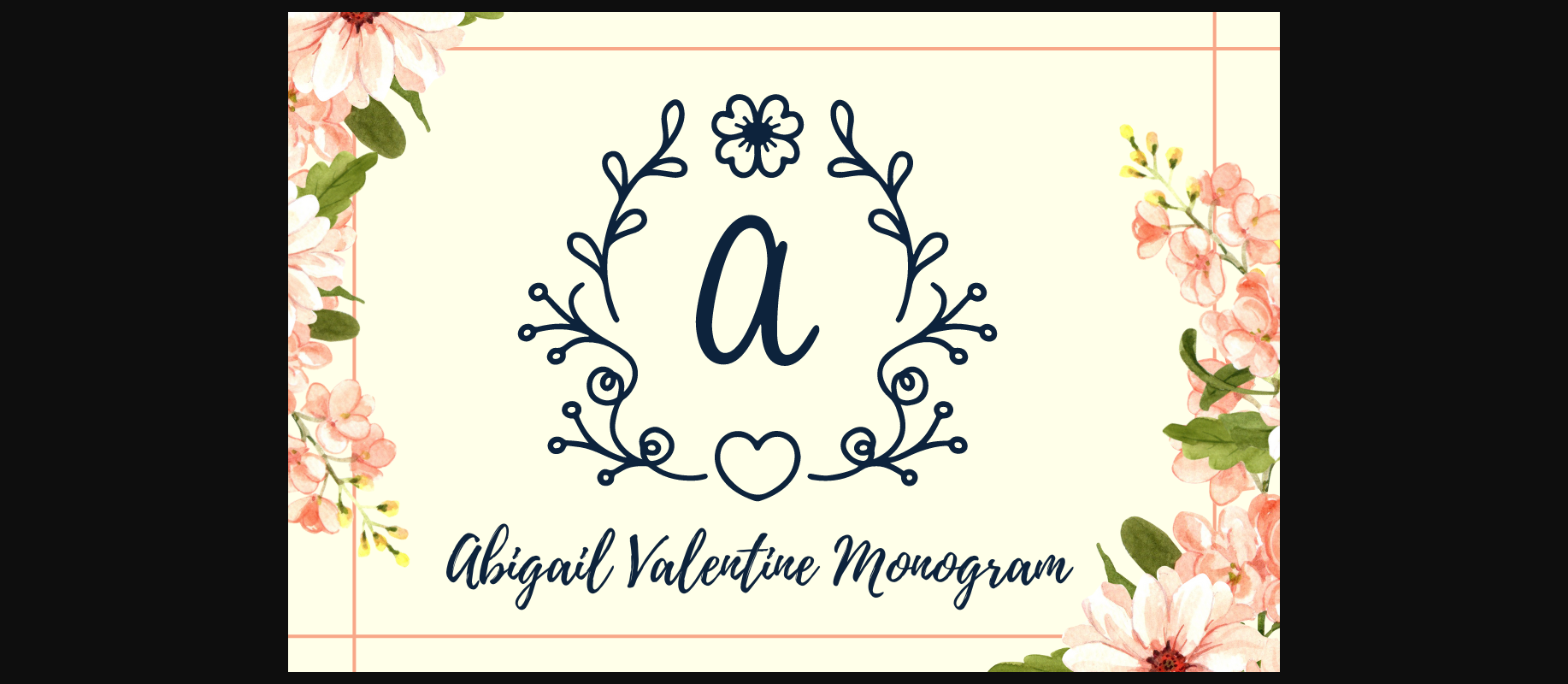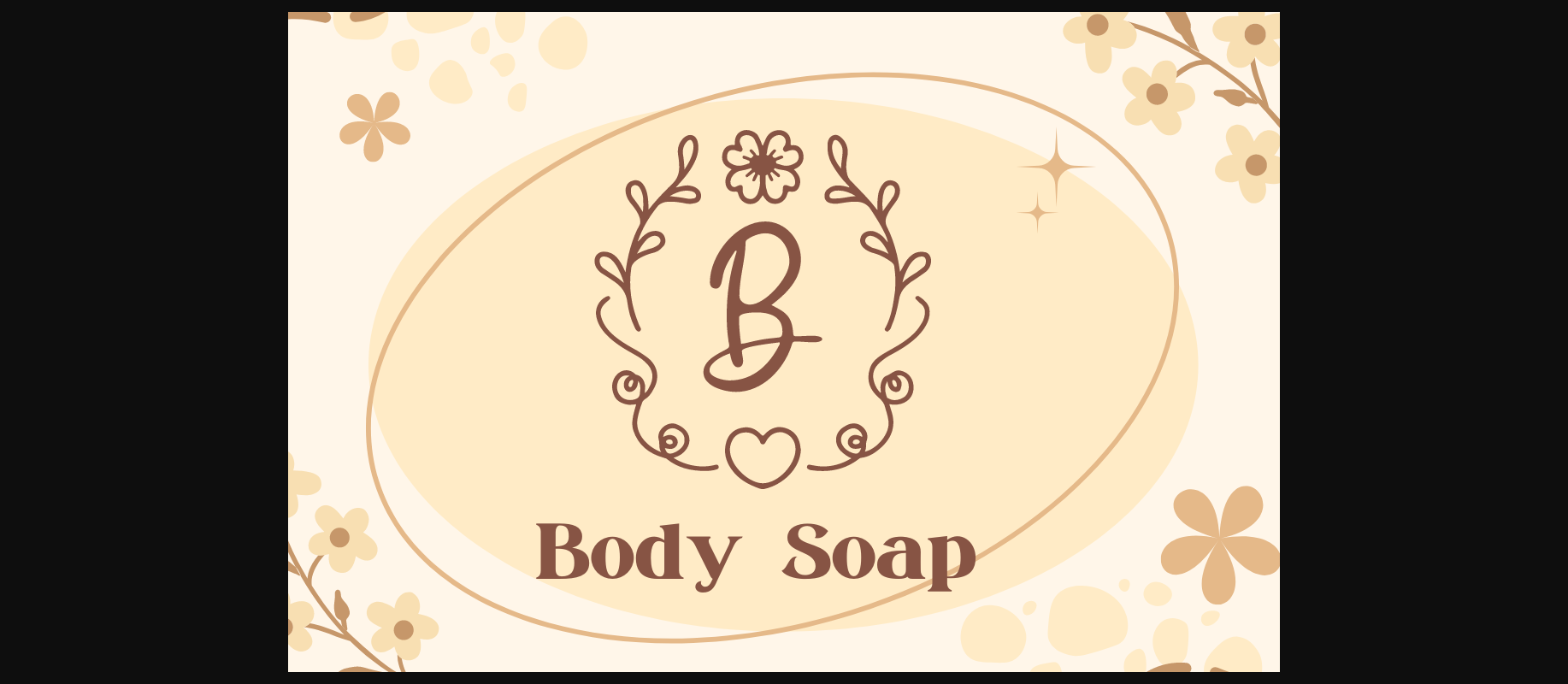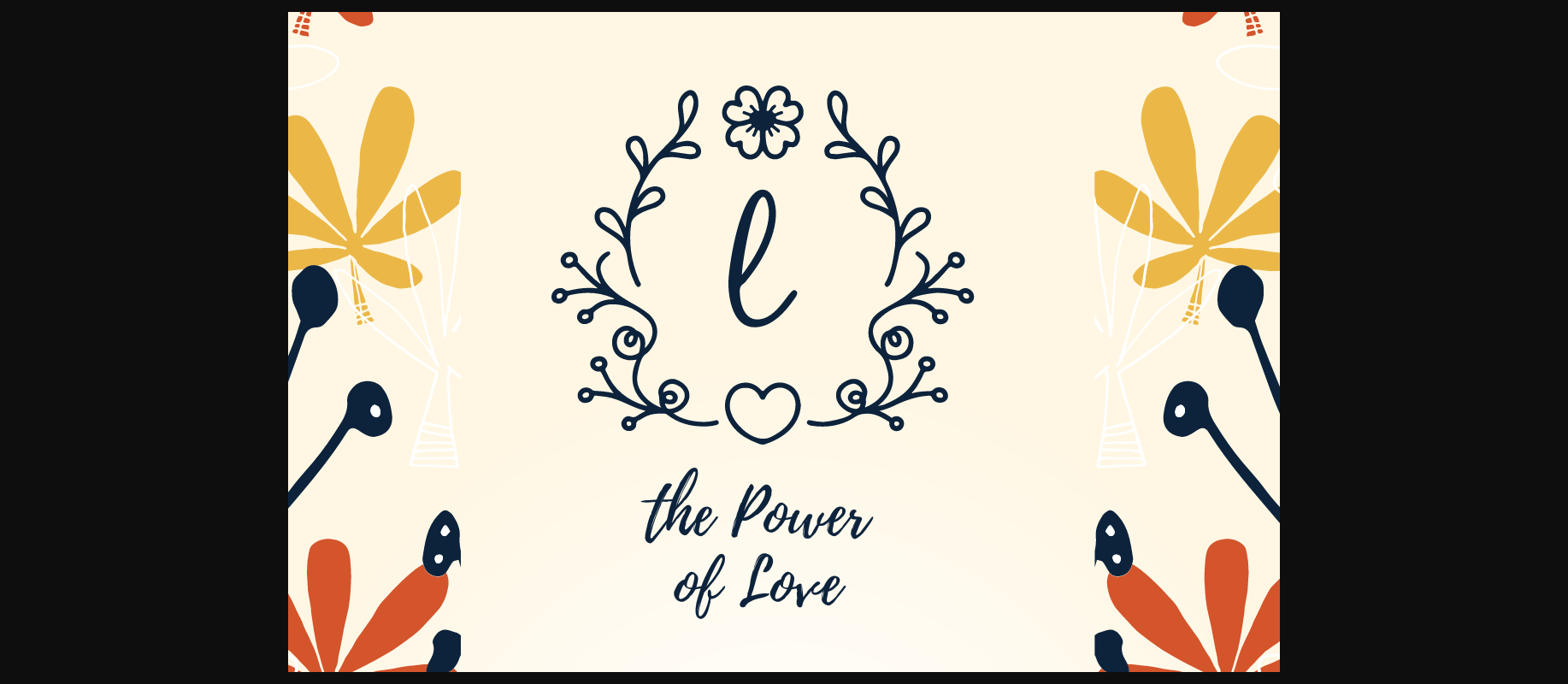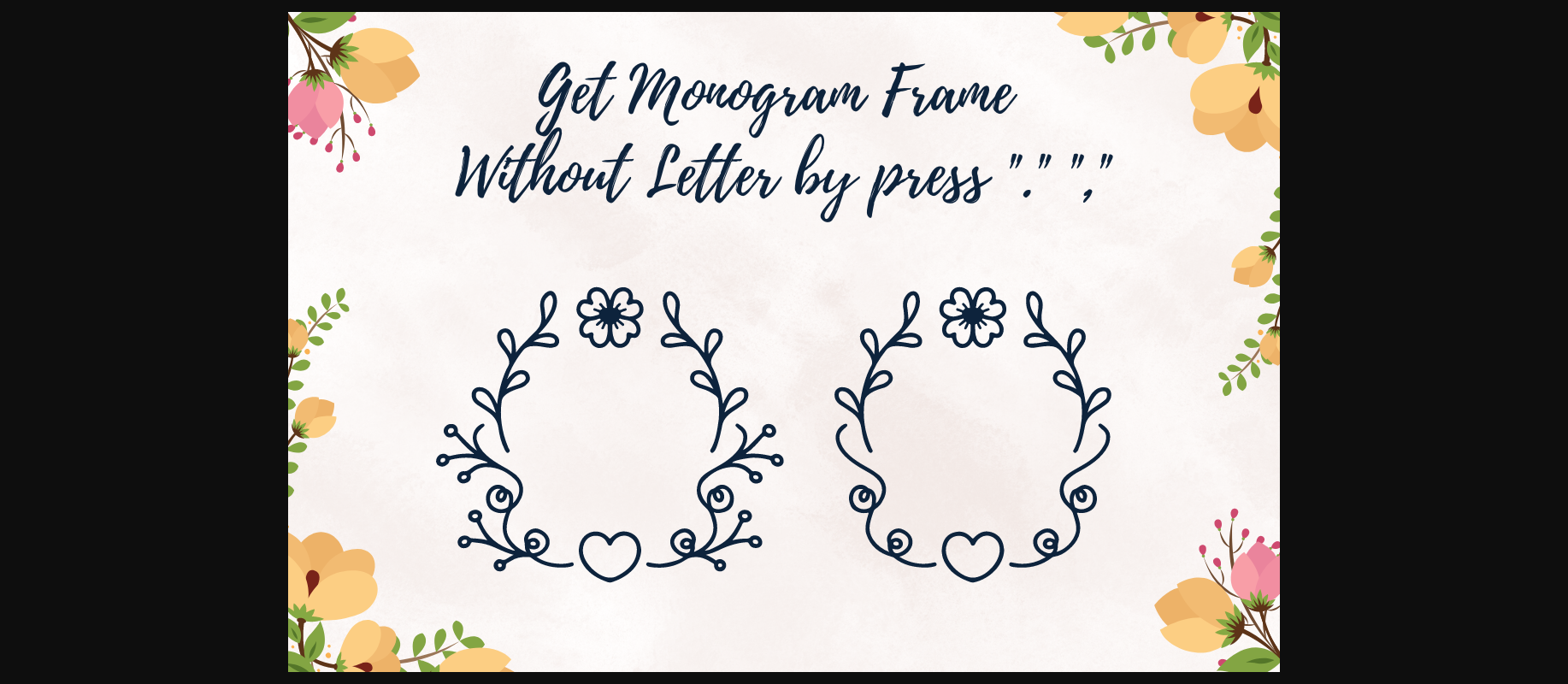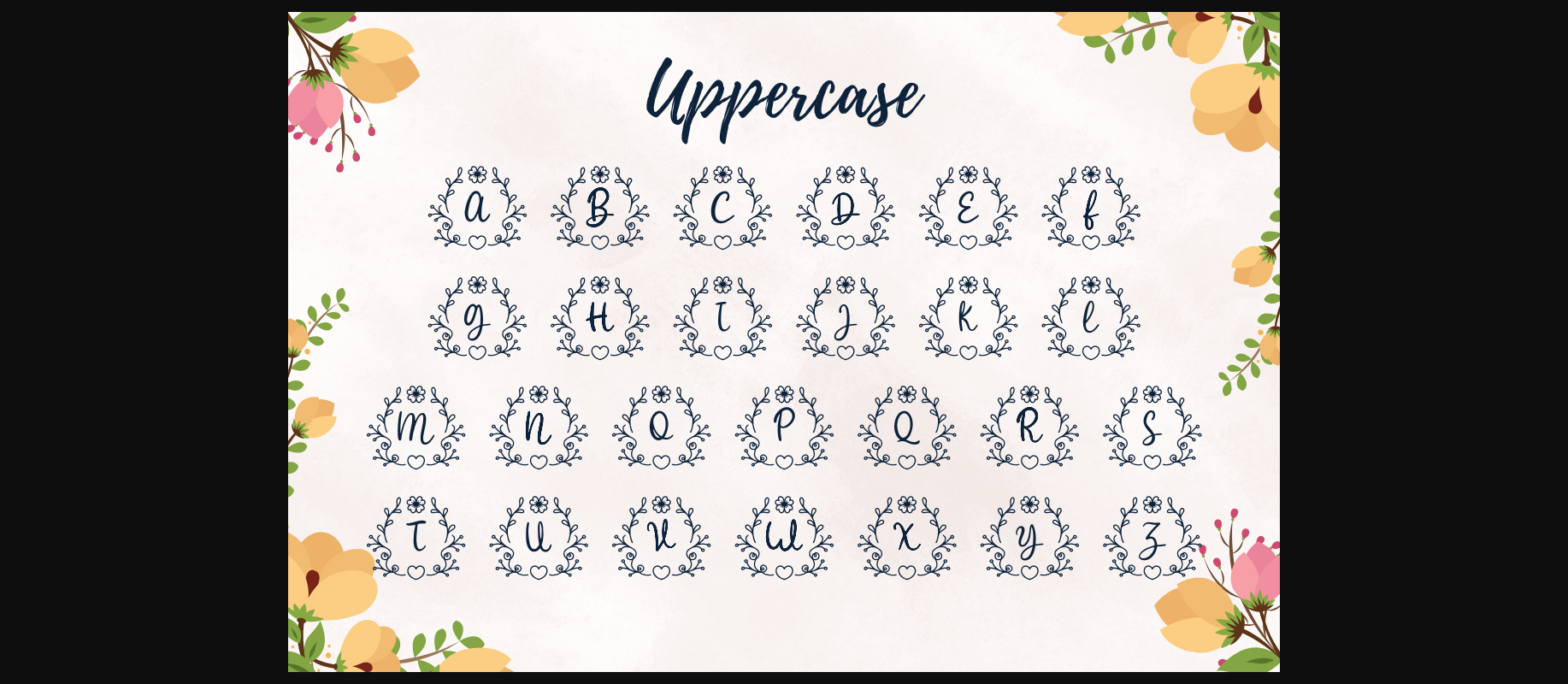
About Abigail Valentine Monogram Font
Abigail Valentine Monogram is a decorative font. Fall in love with it, and create lovely designs for your special occasions, business designs, logos, branding, social media posts, and wedding cards.
Comes in 2 styles.
Just simply change between uppercase and lowercase to see the different styles!
Comes in 2 styles.
Just simply change between uppercase and lowercase to see the different styles!